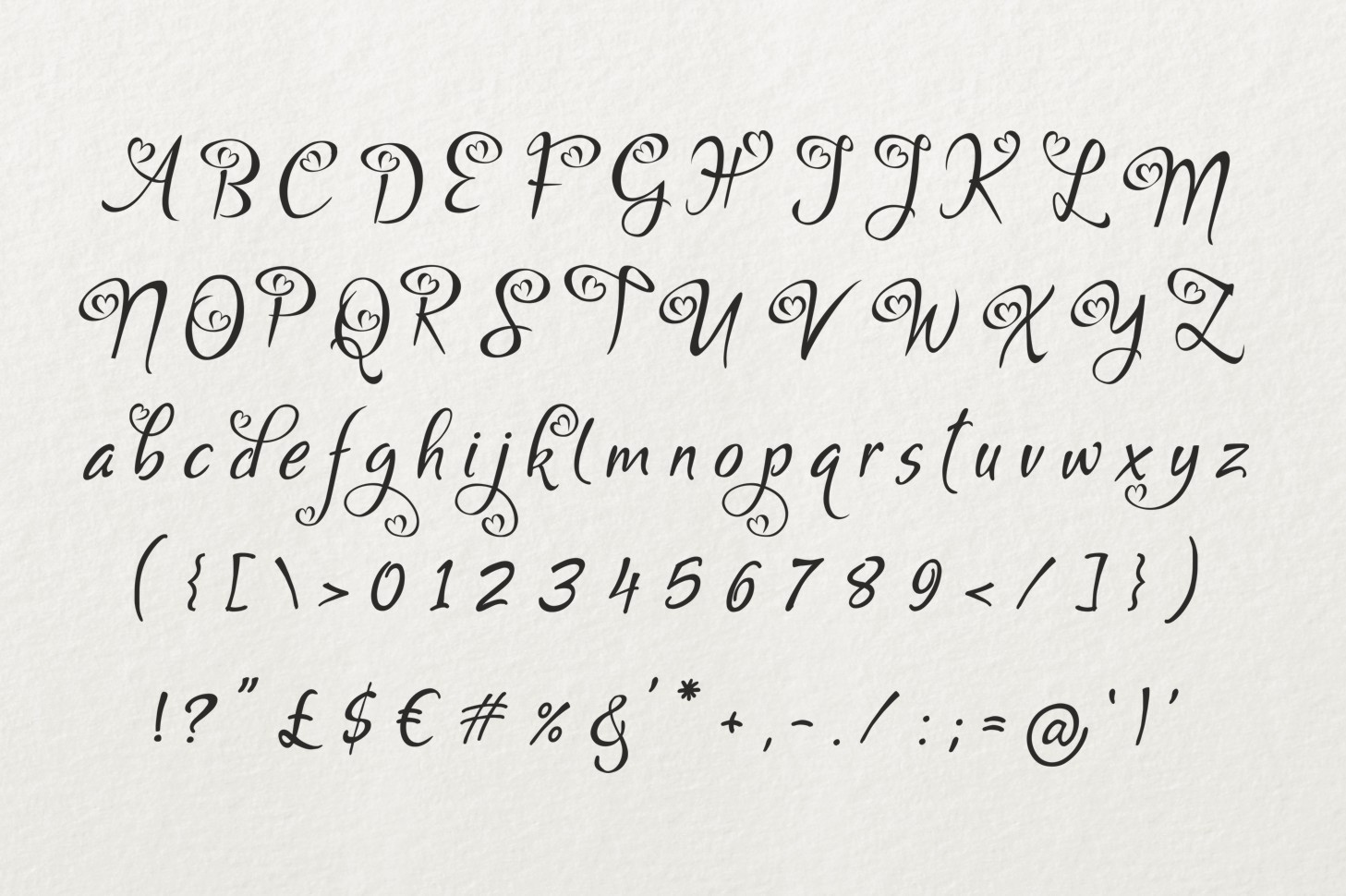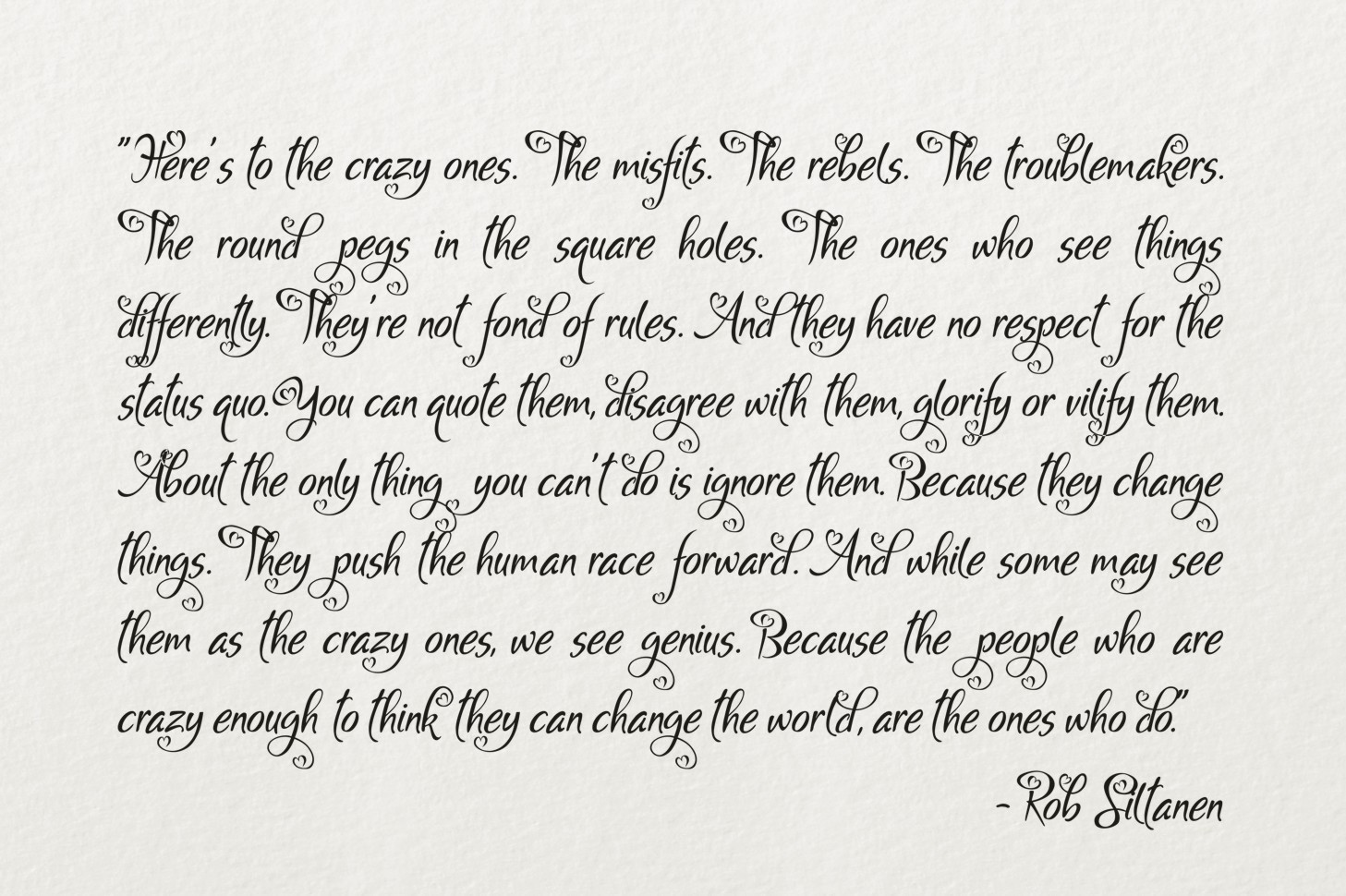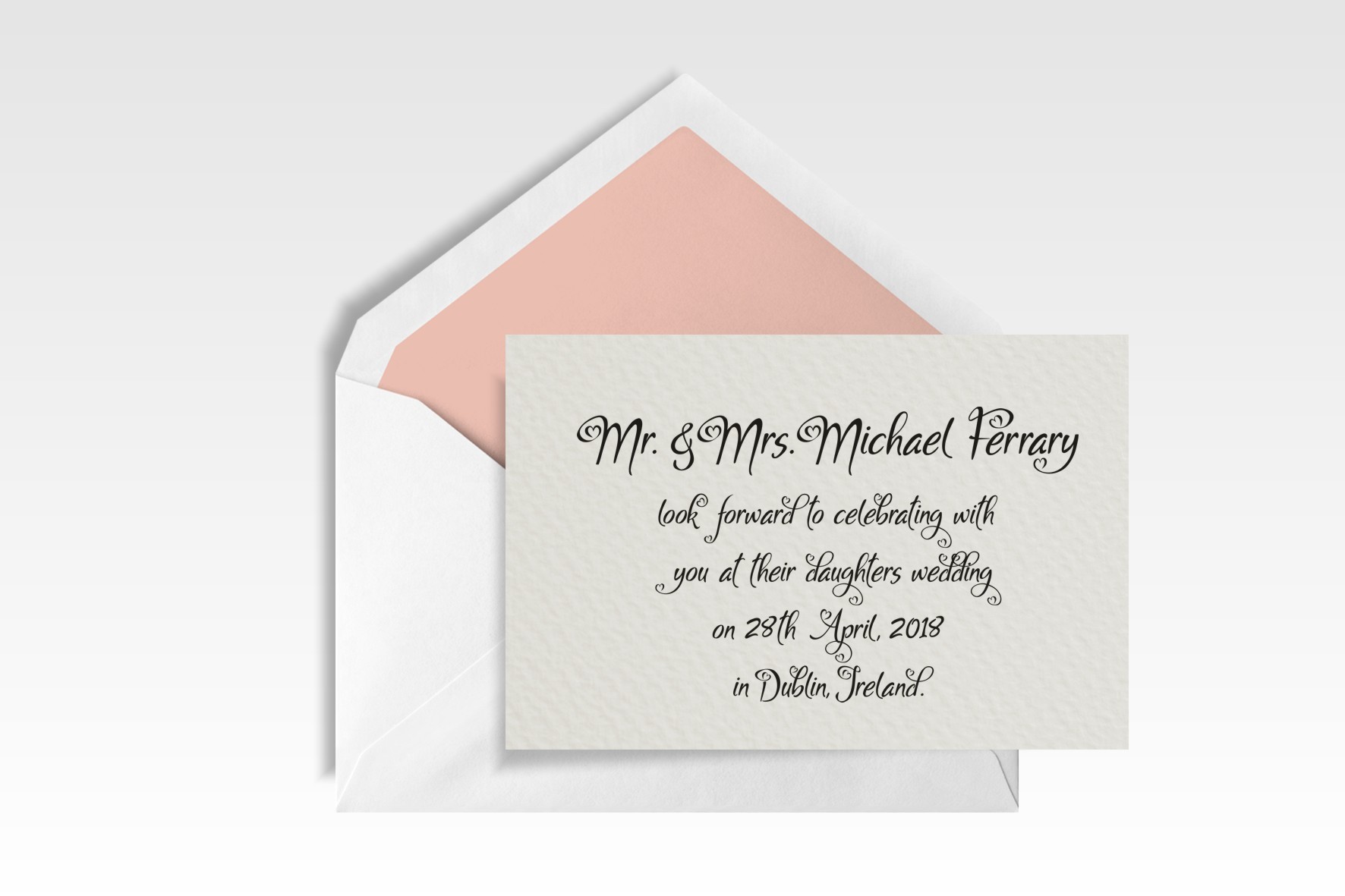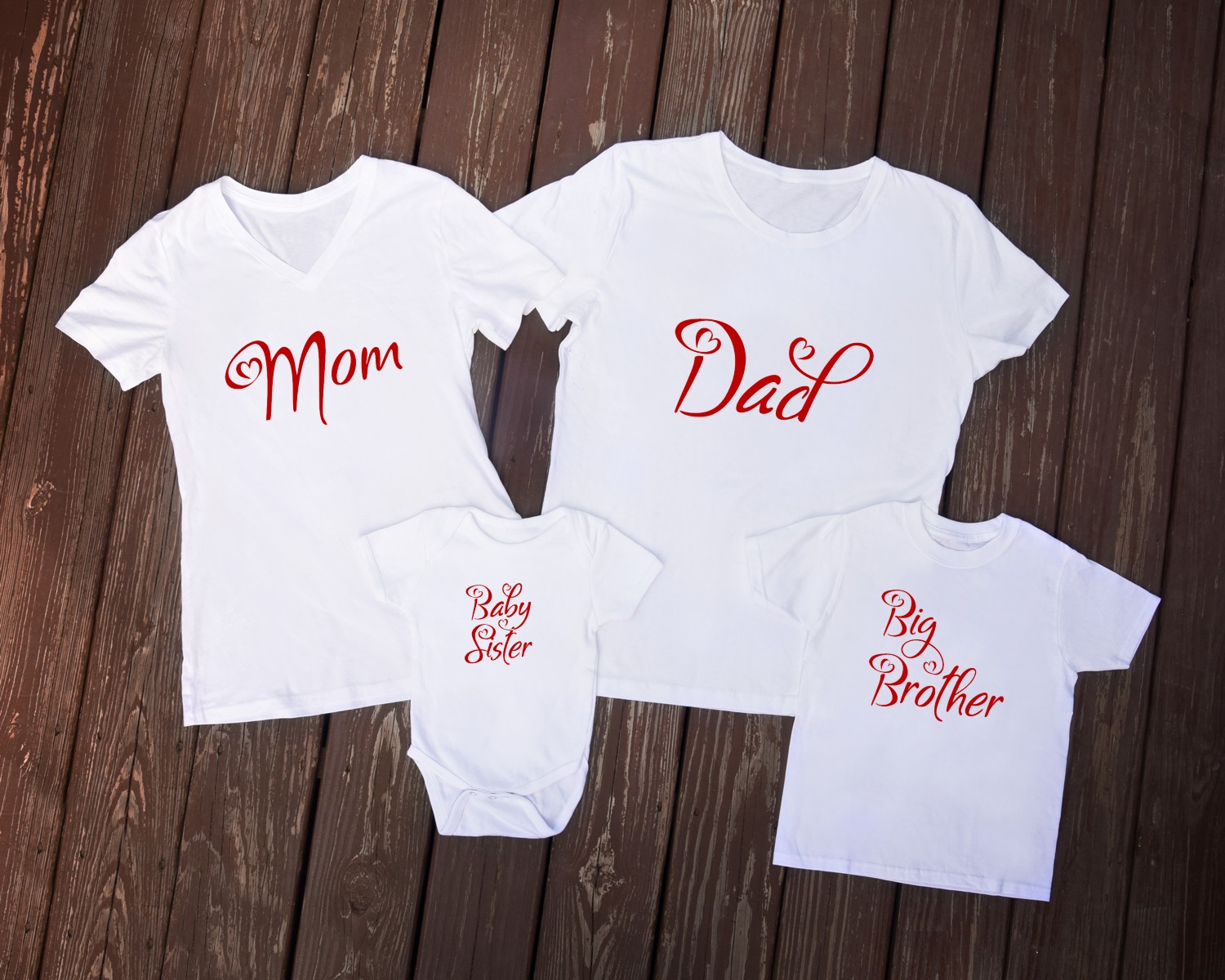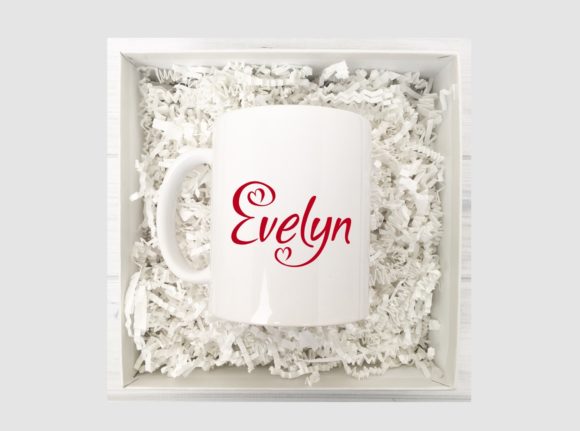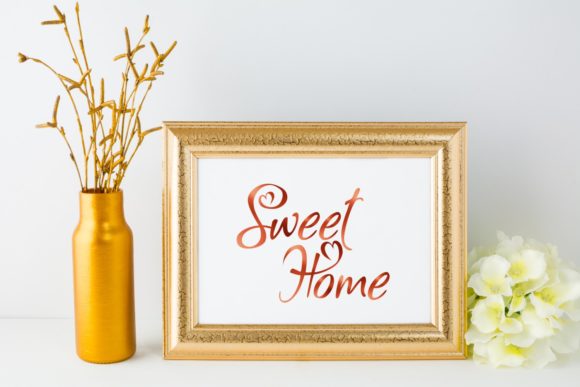
Bigdey Font
About Bigdey Font
Bigdey is a beautiful and romantic script, with heart flourishes and curved styling. This font dances with a ton of movement, and is sure to add some beauty to your designs and projects.